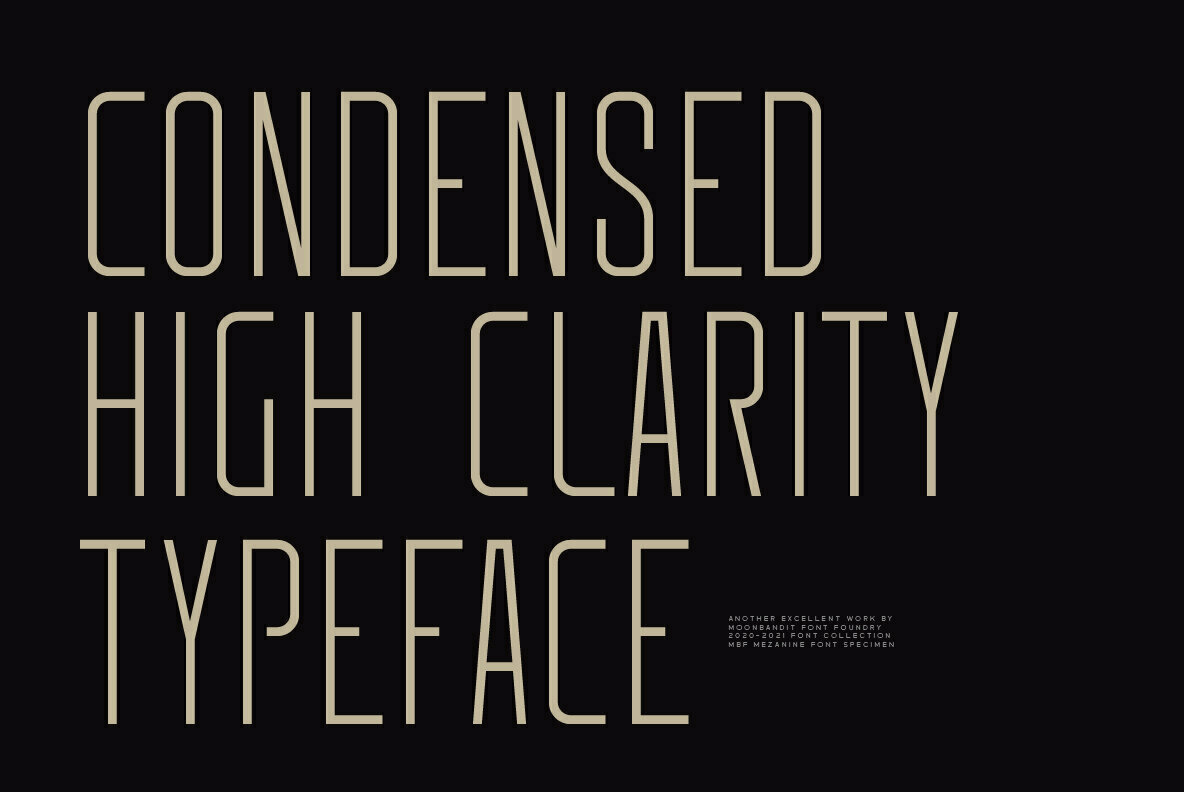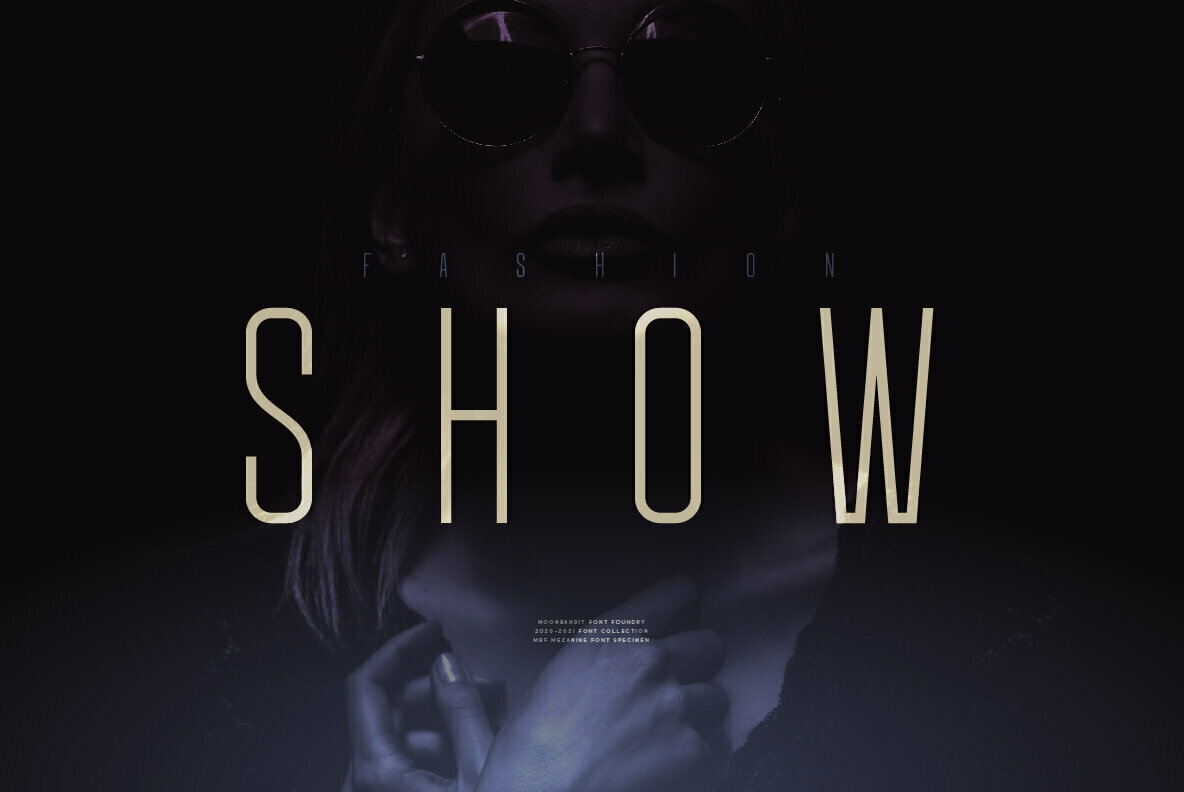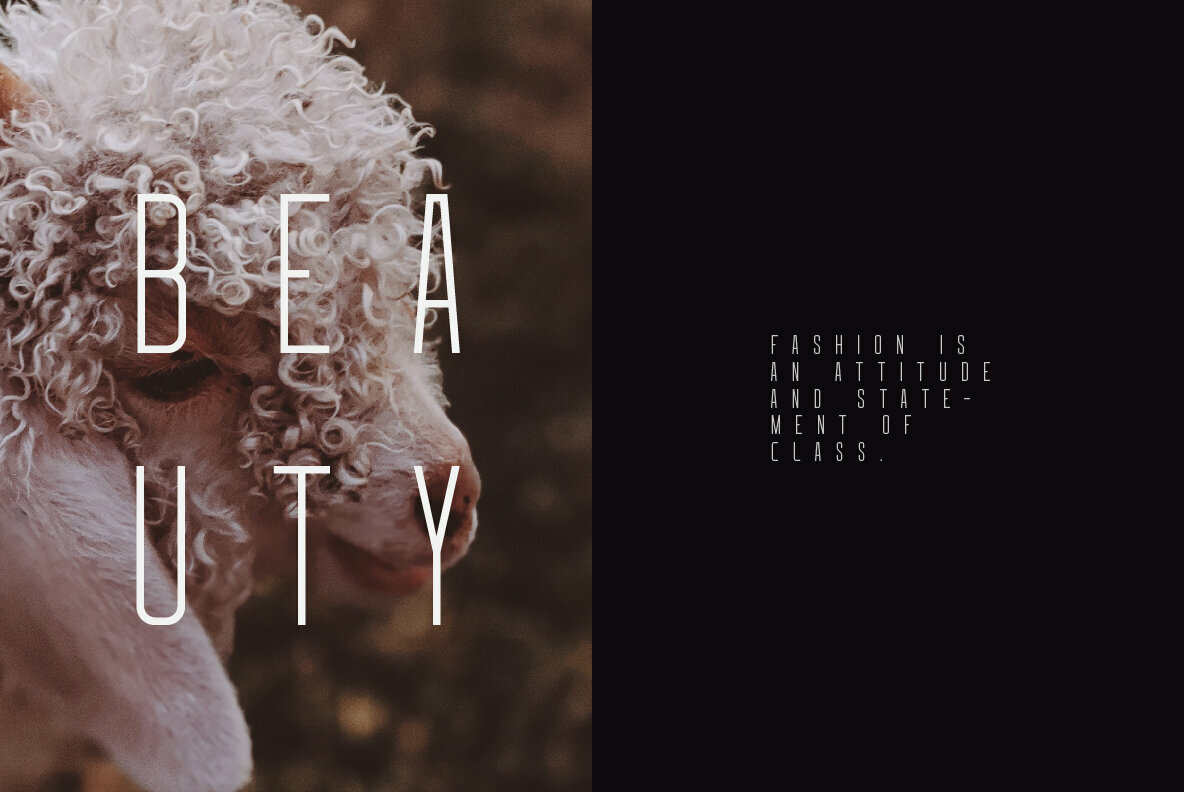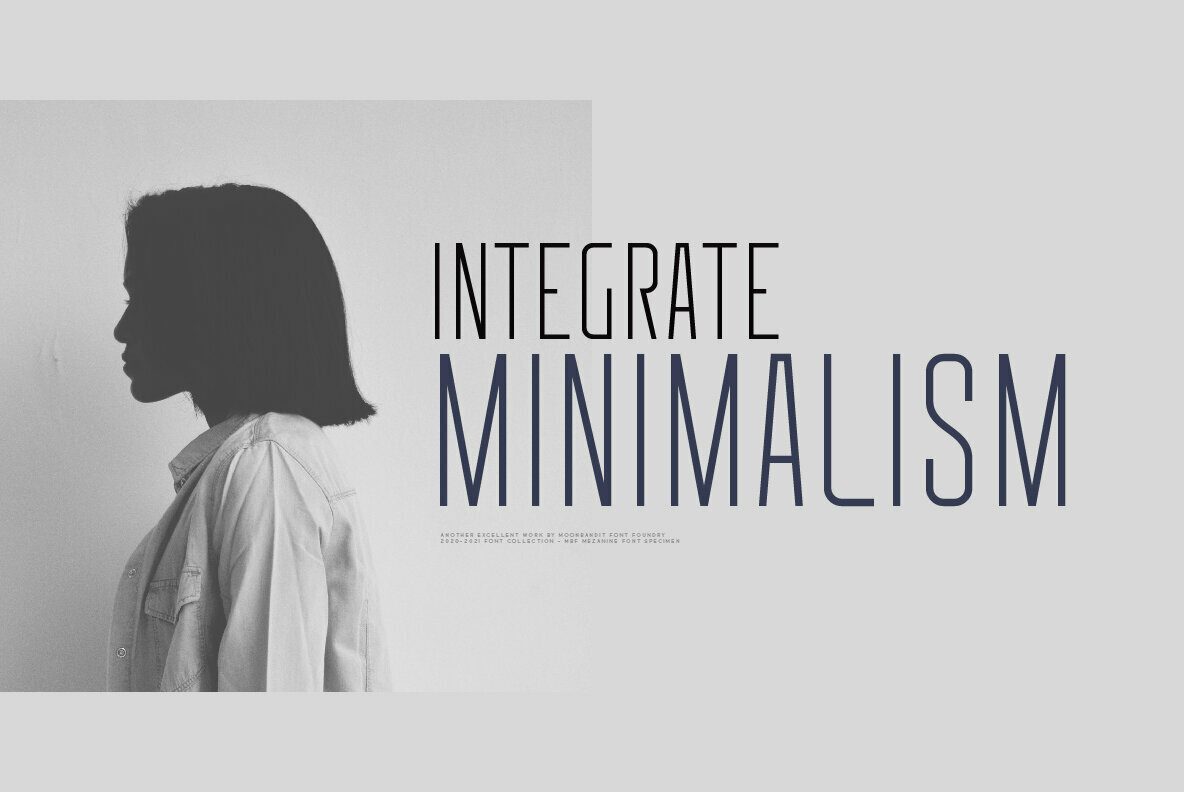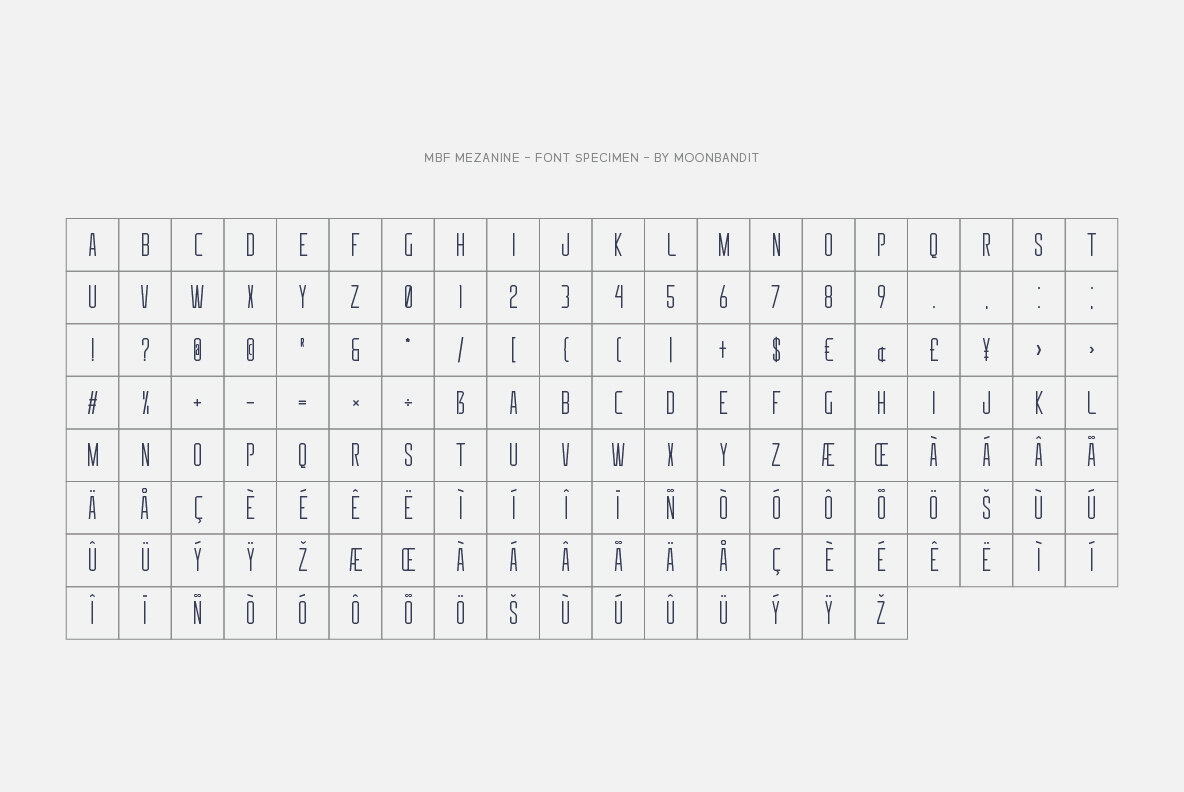
MBF Mezanine Font
MBF Mezanine
The MBF Mezanine is the quintessential choice for designers seeking a font that seamlessly marries minimalism with clarity. This condensed typeface offers a clean, modern aesthetic that effortlessly complements fashion-centric projects and designs aiming for a natural or minimalist look.MBF Mezanine: Minimalist Condensed Typeface